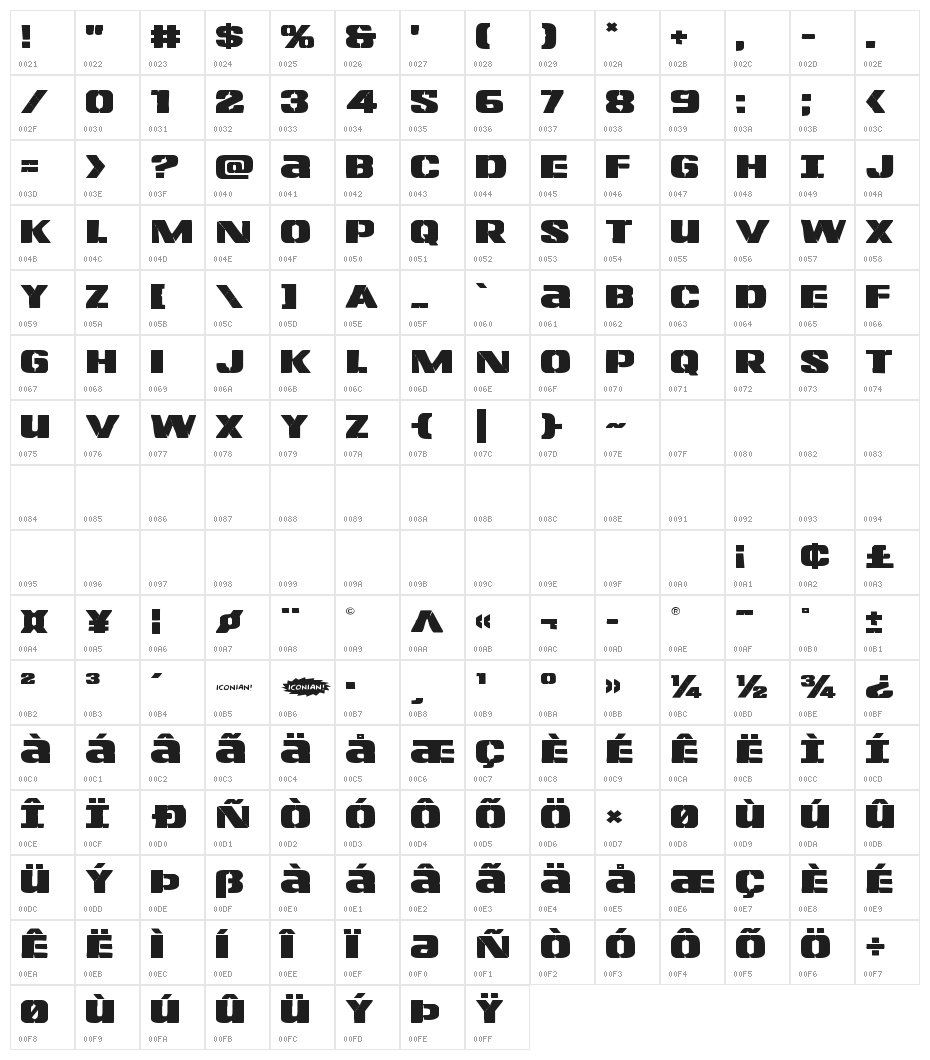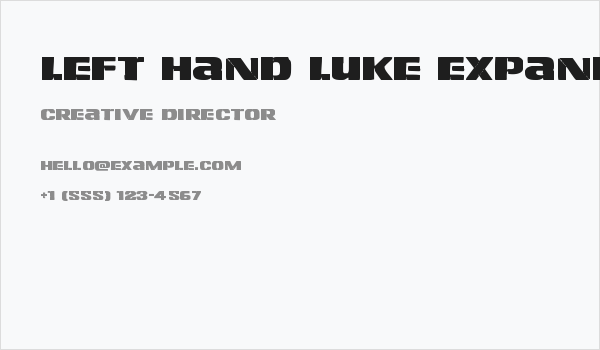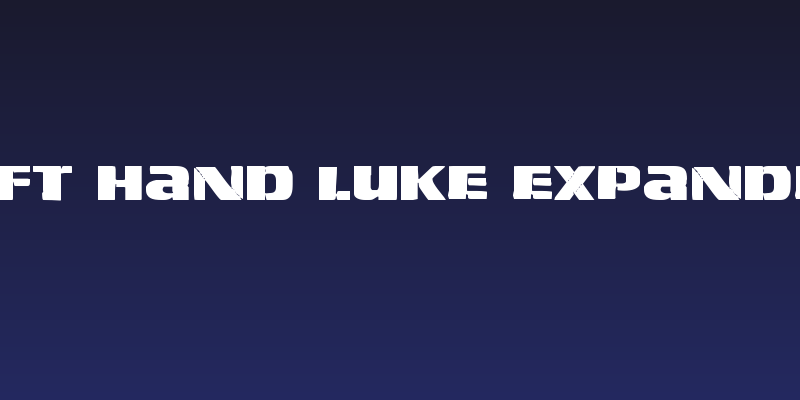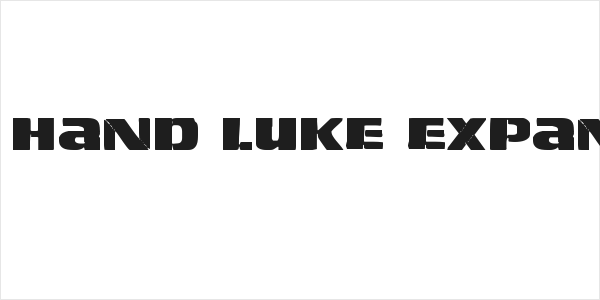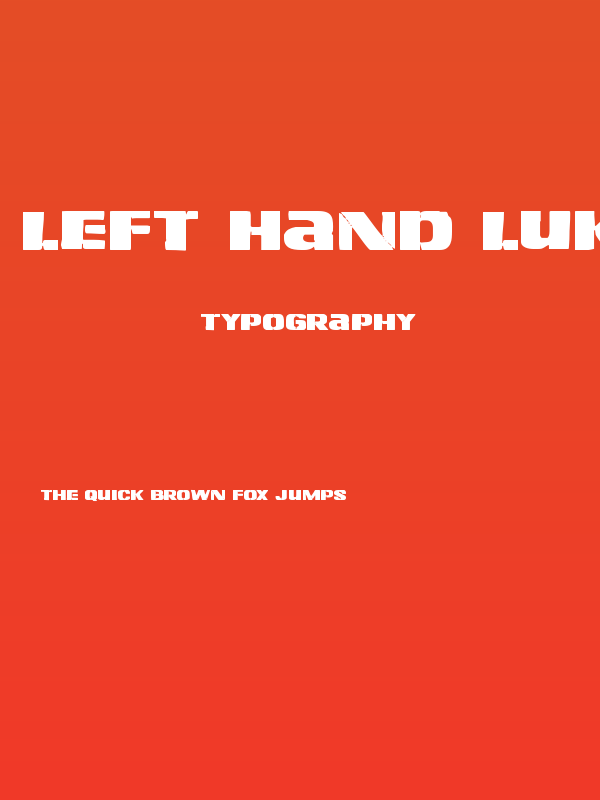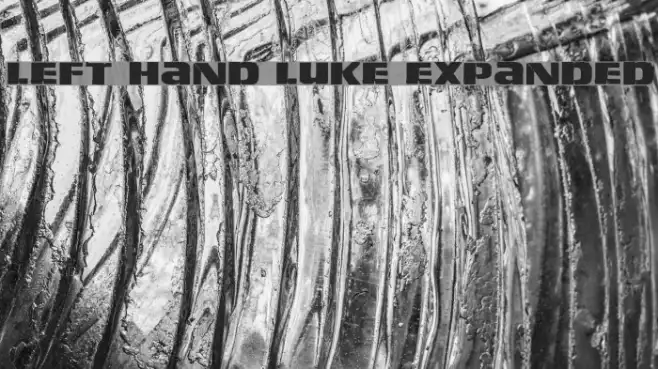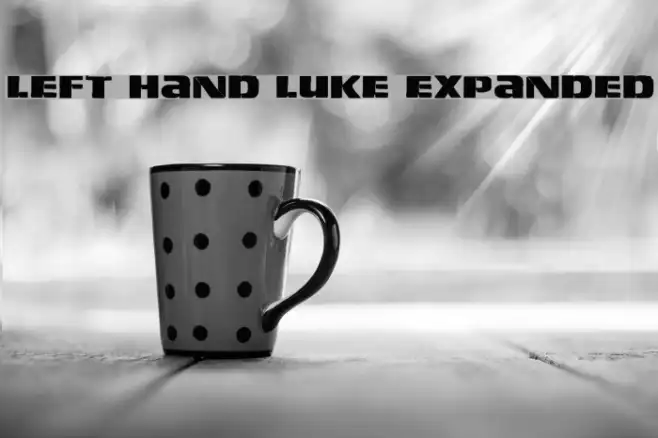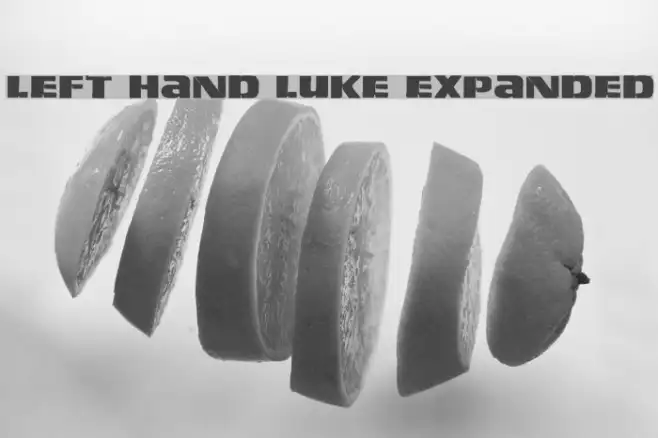
Left Hand Luke Expanded Font
Left Hand Luke Expanded Description
This font features a bold and rugged design, characterized by its thick, blocky letters with a distressed, textured appearance. The uppercase and lowercase letters maintain a consistent width, creating a uniform and cohesive look. The numbers and special characters share the same bold style, enhancing the font's overall impact. Its expanded width gives it a commanding presence, making it ideal for attention-grabbing headlines or titles. The distressed texture adds a vintage or industrial feel, suitable for projects that require a bold, gritty aesthetic.
LEFT-HAND-LUKE-EXPANDED UPPERCASE
LEFT-HAND-LUKE-EXPANDED LOWERCASE
LEFT-HAND-LUKE-EXPANDED OTHER CHARS
| Overall Style | Industrial, Vintage |
| Proposed Projects | Ideal for posters, logos, branding, and any design needing a bold, industrial look. |